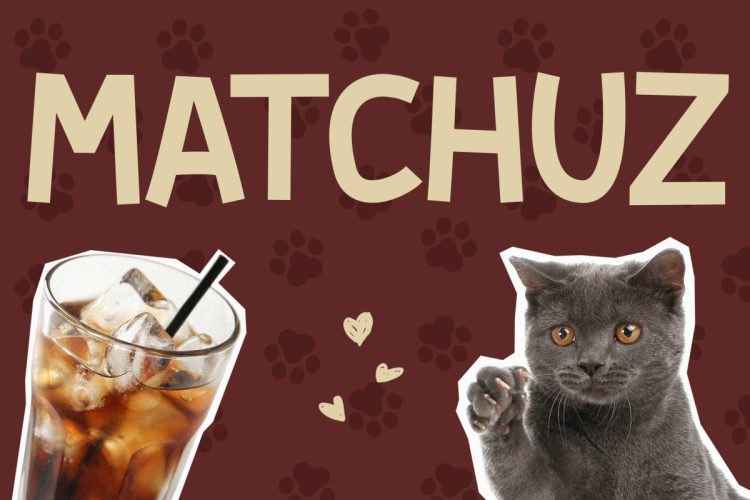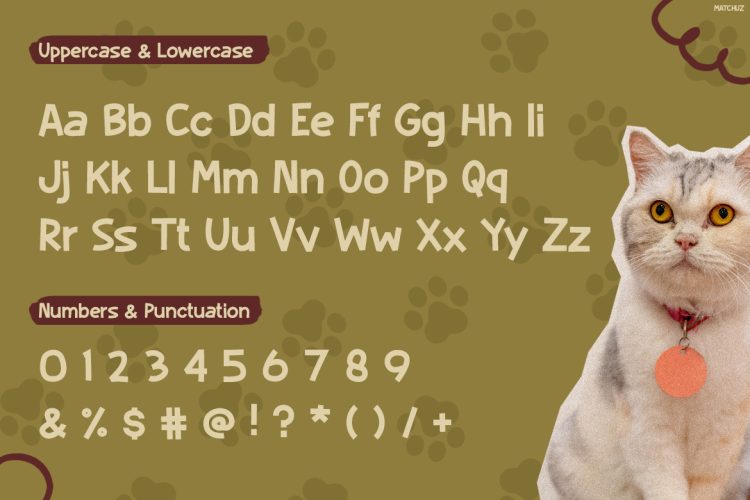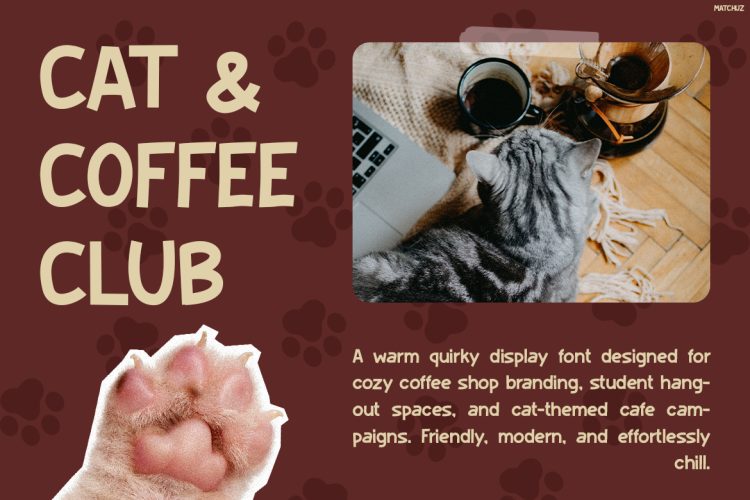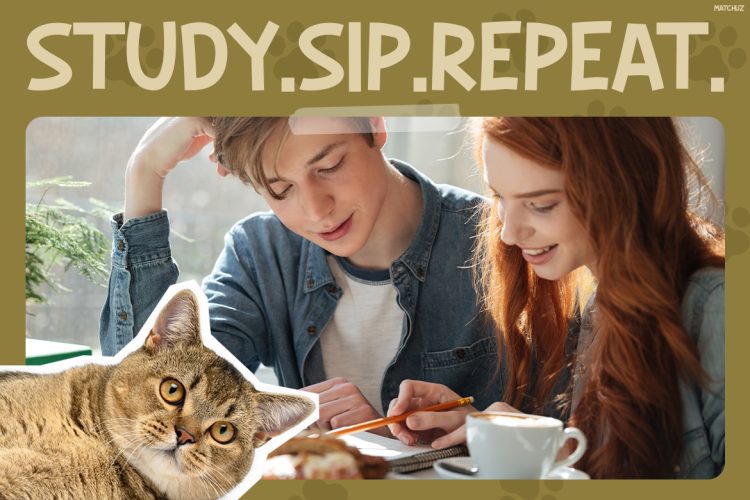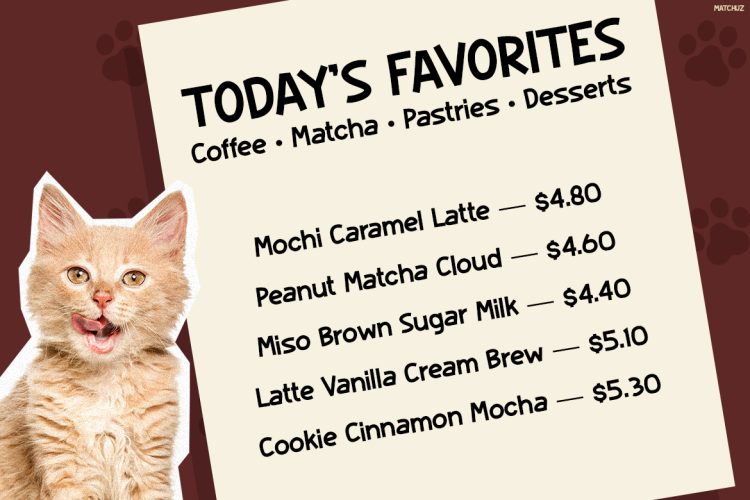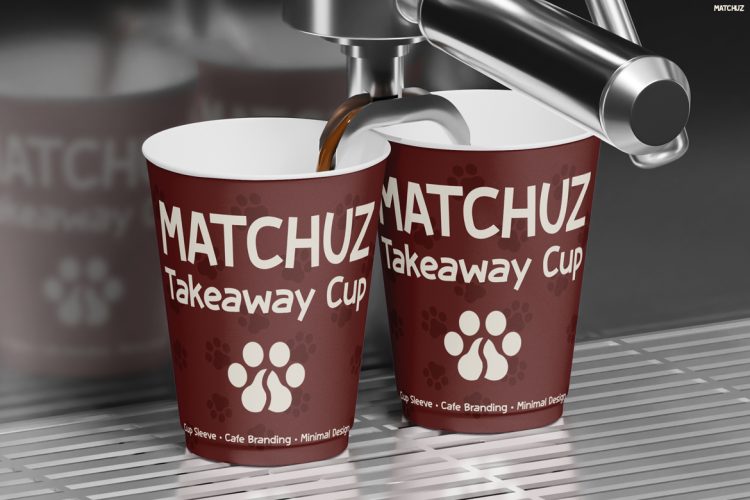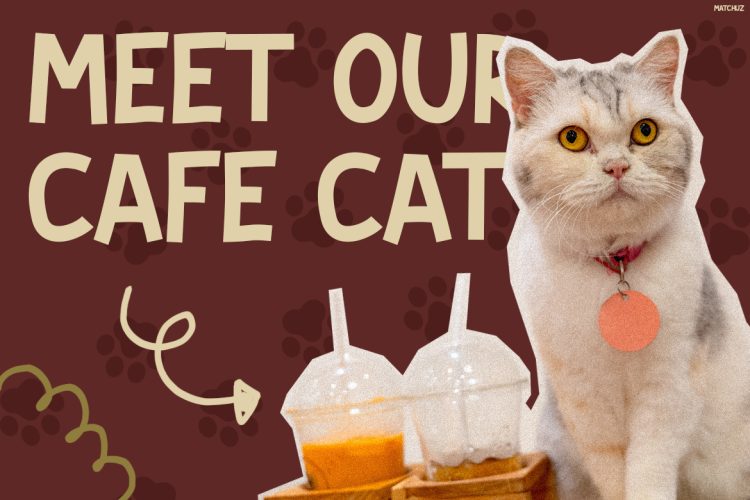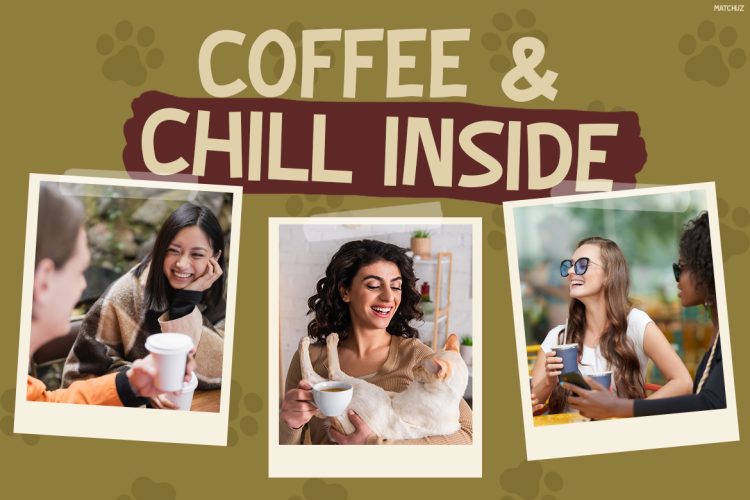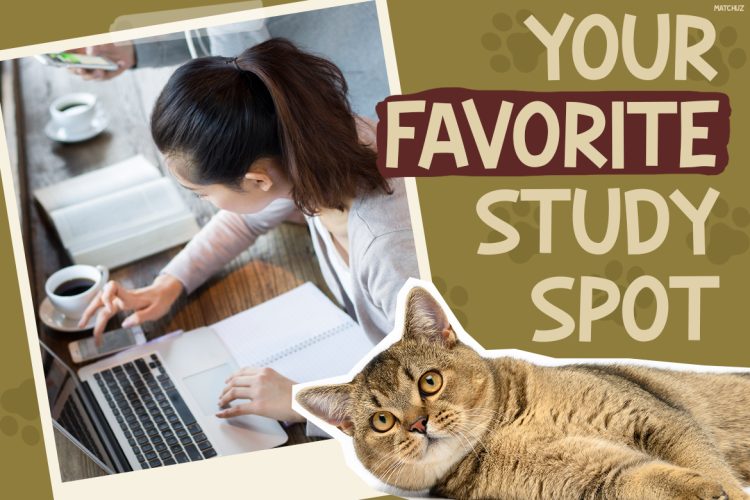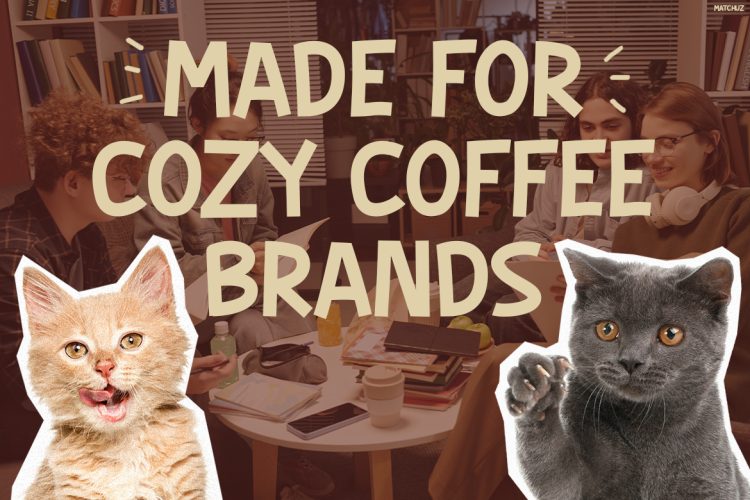
Instagram Font Matchuz โ Cozy Handwritten Font for Coffee & Lifestyle Brands
Instagram Font Matchuz brings a cozy handwritten style with soft organic strokes, playful imperfections, and a friendly handcrafted feel. Furthermore, the font creates a warm and inviting atmosphere that instantly makes designs feel more personal and approachable. Because of its natural handwritten character, Matchuz delivers authenticity while still maintaining excellent readability. In addition, the relaxed letterforms add charm and personality to branding, packaging, menus, and social media content. As a result, every design feels more welcoming, memorable, and emotionally connected to its audience.
Moreover, Matchuz combines casual elegance with modern creativity, so it works beautifully for brands that want a friendly and genuine identity. Whether you are creating cafรฉ promotions, lifestyle branding, product packaging, or Instagram content, this font helps your visuals stand out with warmth and character. Therefore, Matchuz becomes an excellent choice for designers who want typography that feels both stylish and approachable.
Instagram Font Matchuz Perfect For Creative Projects
Additionally, Matchuz performs beautifully across both digital and print media because of its versatile handwritten style. Consequently, your branding can look more authentic, friendly, and visually appealing.